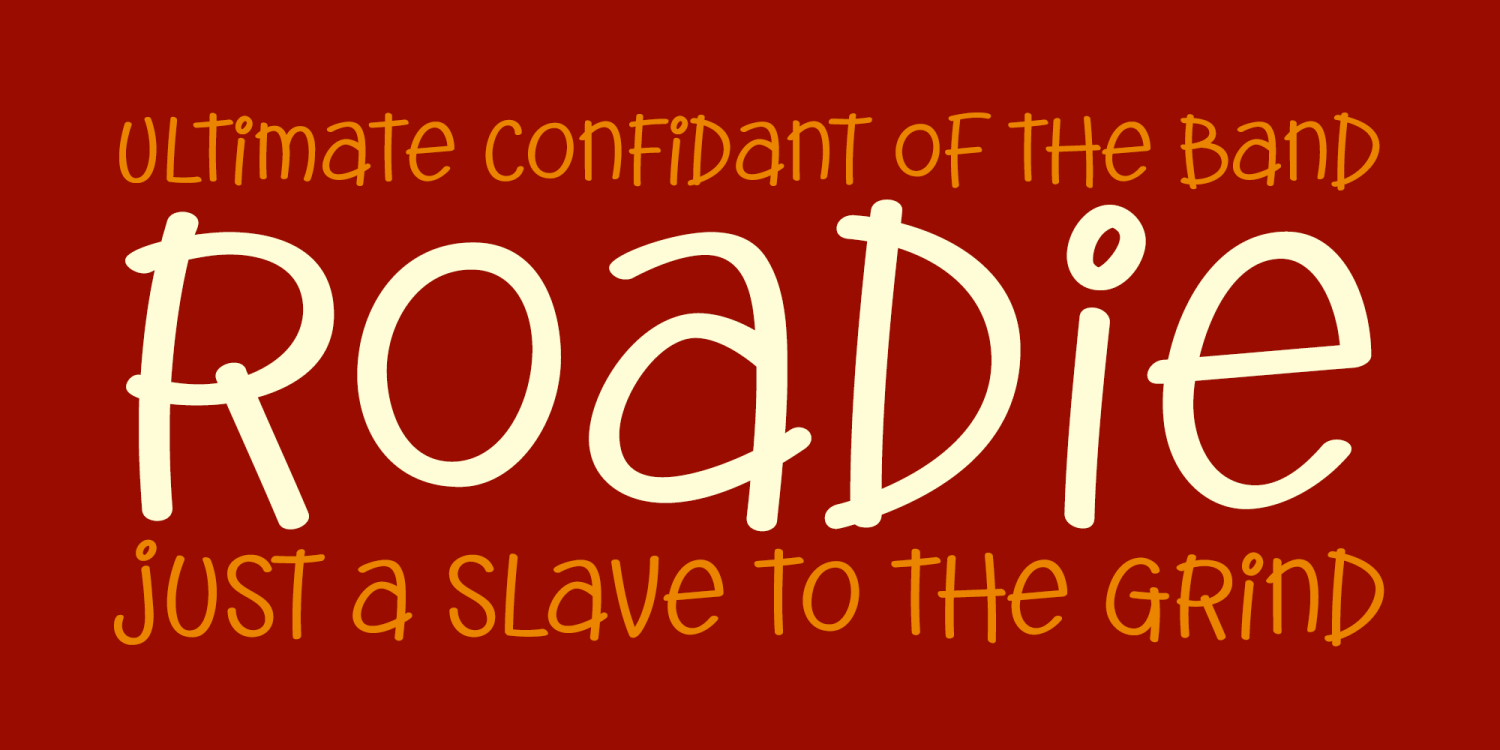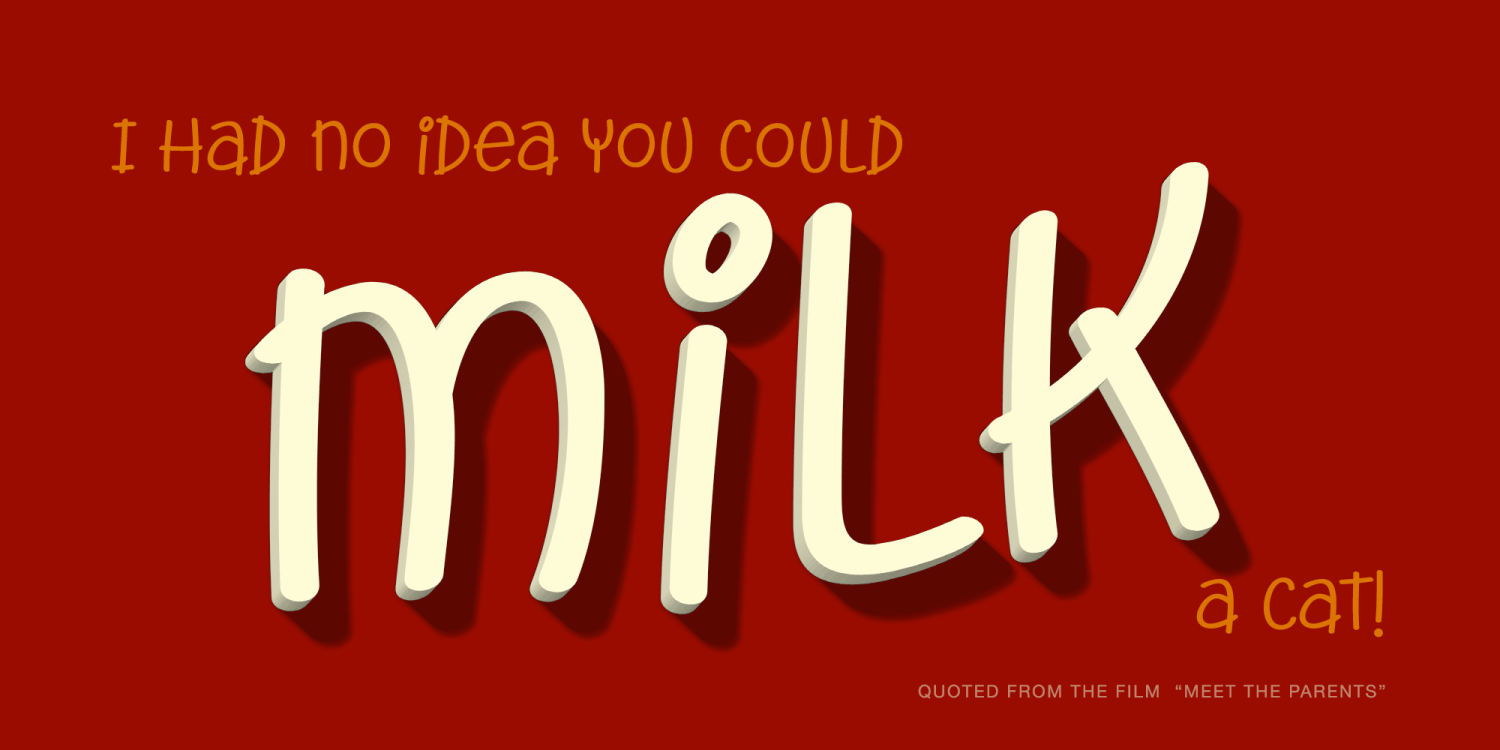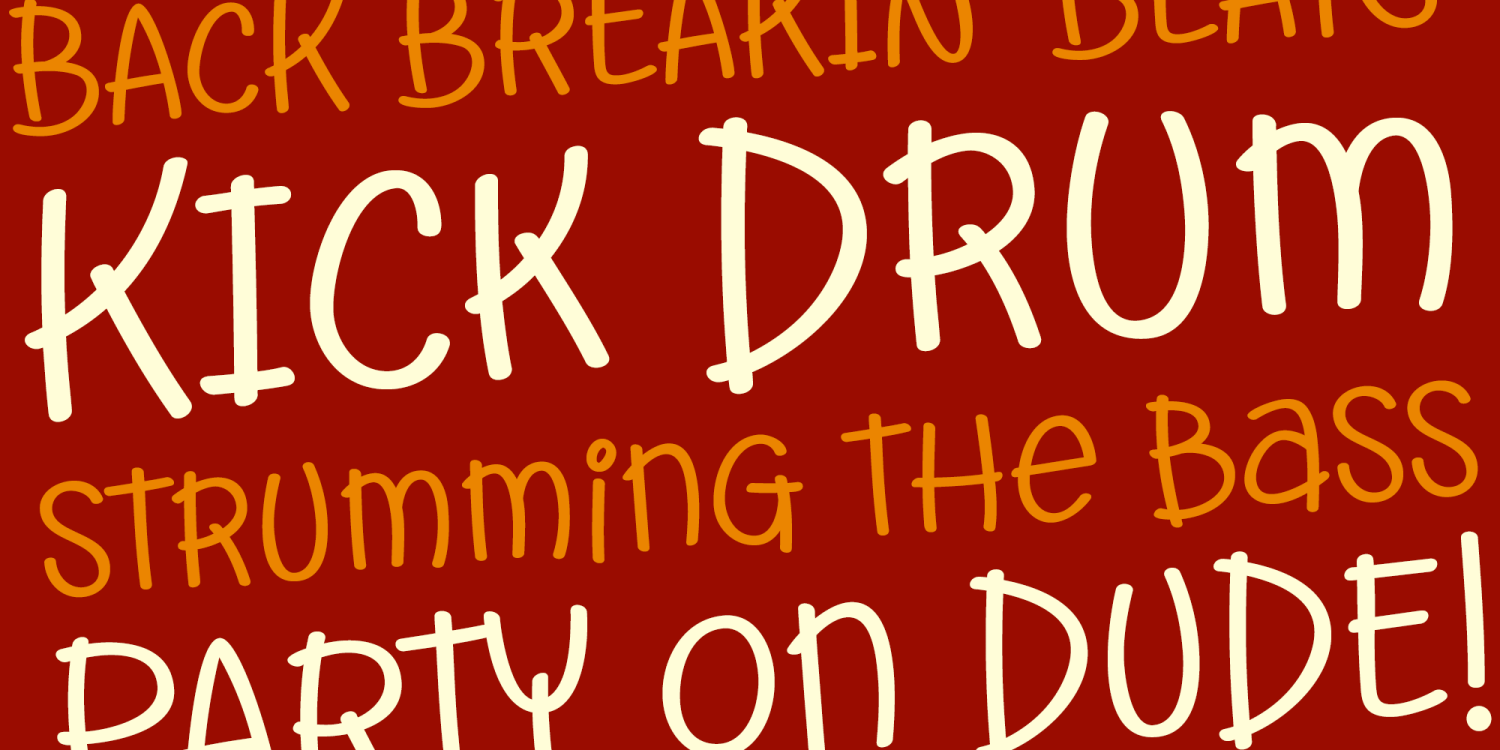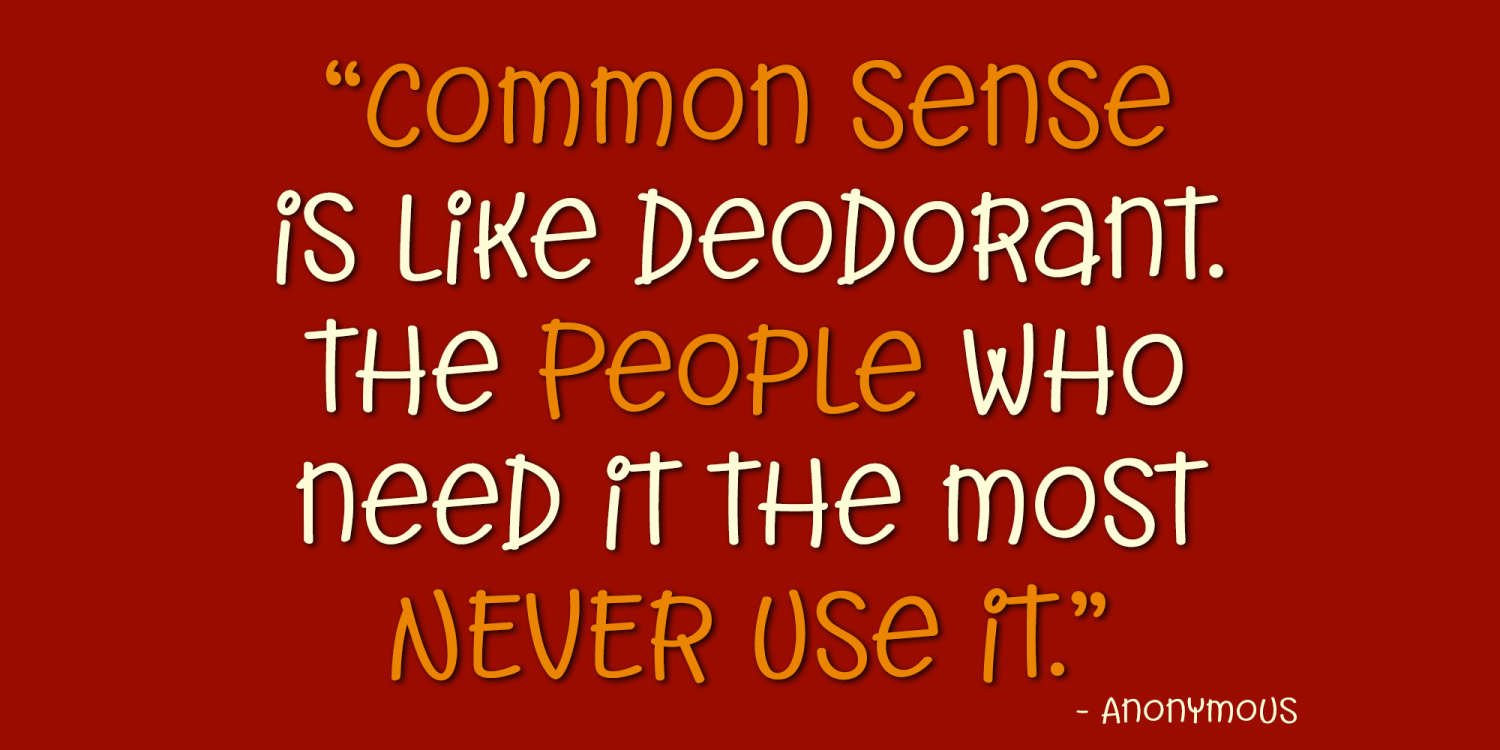
Roadie
Roadie was inspired by a 1981 Hallmark card with lettering that was full of frolicking fun. Filled with a childish persona and a playful bounce, this Roadie has a lot to offer. As with some of my previous type designs, it is a typographic dance, wonderfully skipping across designs, surprising with each letter typed.
With an extensive character set, and clean sharpie marker-like look, Roadie is a joy to typeset with, and it comes with a stylistic alternates feature that shuffles the Capitals and lowercase that share similar unicase forms that add to the quirky playfulness.